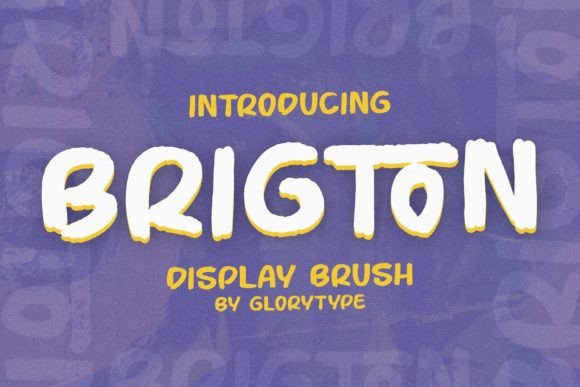
Brigton Font: A Journey Through Creative Elegance
In the realm of visual communication, fonts are the architects of expression. They possess the power to transform ordinary words into captivating stories, to elevate designs from mundane to magnificent. Brigton Font, a modern display font born from the creative forge of Glorytype Studio, is a testament to this transformative power.
Immerse yourself in the world of Brigton, where each letter is a brushstroke of elegance, a dance of lines and curves that harmonizes perfectly with your creative vision. Whether you're crafting logos that demand attention, branding projects that exude sophistication, or homeware designs that whisper warmth, Brigton is your steadfast companion.
Picture your designs adorned with Brigton's graceful characters, your product packaging transformed into miniature masterpieces, your mugs and quotes radiating a touch of timeless charm. Envision posters that ignite imaginations, shopping bags that carry stories, and T-shirts that make a statement.
Brigton's versatility is as boundless as your creativity. Its allure extends to book covers that captivate readers, name cards that leave a lasting impression, invitation cards that hint at the magic within, and greeting cards that convey heartfelt messages.
Labels, photography, watermarks, special events – Brigton elevates every project it graces with its presence. It's the perfect font for those who seek beauty, sophistication, and a touch of timeless charm in their designs.